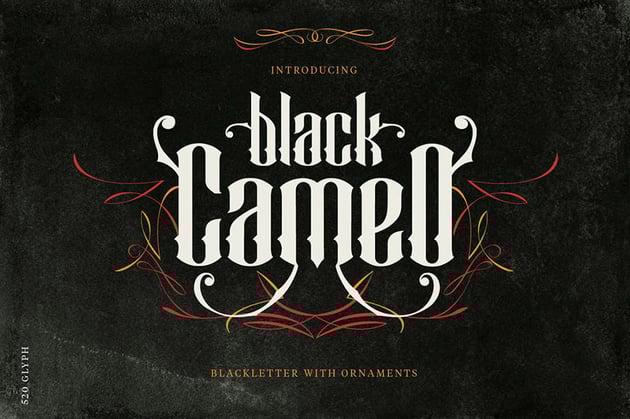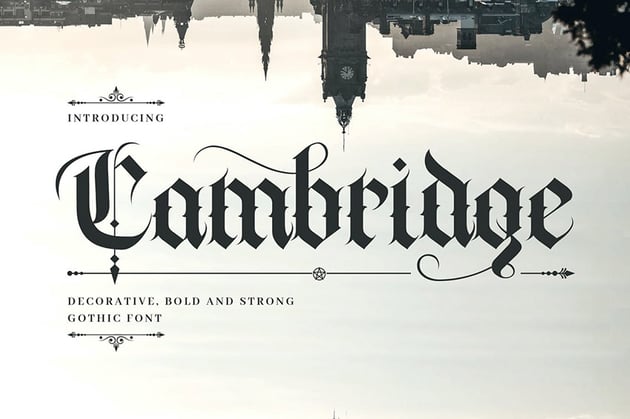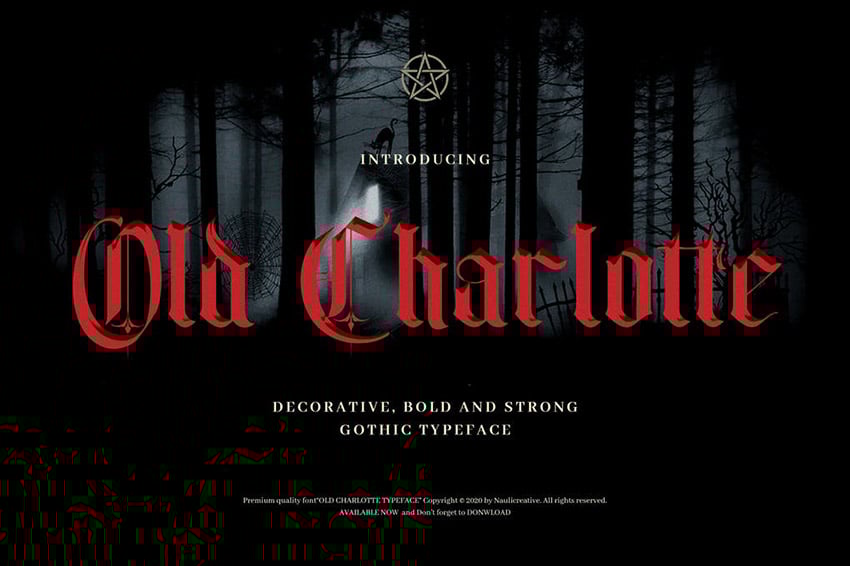
40 Best Blackletter and Gothic Fonts for Designers
Best Blackletter and Gothic Fonts
1. Aceking: Vintage Blackletter Gothic Fonts (OTF, TTF, WOFF)
This stylized display font borrows elements from Gothic type design and Western poster type to create an immersive style that would work well for band branding or gig flyers. Go ahead and download this epic blackletter font.
2. Jailetter Gothic Letters Font (OTF, TTF, EPS)
A modern lettering font with stylized nods to old-school typography, Jailetter Gothic Letters Font is an edgy, cool font. Try it on posters or for the label of a new brew.
3. Old Charlotte: Bold Gothic Fonts (OTF, TTF, WOFF)
Taking inspiration from Gothic calligraphy fonts, Old Charlotte: Bold Gothic Fonts feels right at home in the modern world. This English Gothic font is a good fit for book covers, invitations, and more projects or for dark lettering tattoos.
4. Cambridge: Gothic Letters Font (OTF, TTF, WOFF)
Cambridge: Gothic Letters Font is an old English Gothic font with a modern sense of style. It has a full set of characters, including numbers and punctuation. Try out Cambridge on a new logo or display video.
5. Othelie Gothic Fonts for Tattoos (OTF, TTF, EPS, PDF, AI)
Othelie Gothic Fonts for Tattoos is a very interesting take on goth fonts. The fuller characters have a softer, inviting look. Othelie includes alternate glyphs, so you can have the perfect modern blackletter font for your project.
6. Hurscol Bold Gothic Fonts (OTF)
Hurscol Bold Gothic Fonts is another one of the cool fonts available on Envato Elements. It has rounded glyphs for a friendlier look that's still grounded in German Gothic fonts. Hurscol also has a full set of numbers and punctuation.
7. Rontek Black Gothic Script (OTF, TTF, JPG)
Looking for the perfect Gothic font for tattoos or creative projects? Then you should try out Rontek. It's a typeface that is suited for darker creations. Its unique characters also make it a great option for a Gothic font tattoo.
8. Vrugoth: Modern Gothic Fonts (OTF, TTF, WOFF)
Vrugoth: Modern Gothic Fonts is another creative Gothic script font. This Gothic typeface has an earthy feel, perfect for nature-themed designs. You can design an outdoors brochure, nature presentation, or adventure guide with Vrugoth.
9. Blackey Bold Decorative Gothic Blackletter Font (OTF, TTF, WOFF)
If you need a decorative Gothic font, try Blackey. It's a typeface that looks like classic blackletter calligraphy from the 1800s. This is a modern medieval font that looks right at home on marketing materials and invitations. Blackey also works on Windows and Mac, so you can enjoy this medieval Gothic font on whatever software you're running.
10. Black Cameo Gothic Lettering Tattoo (OTF, TTF, PDF)
The Black Cameo Gothic Lettering Tattoo gives you many glyph options. More than 525 of them, actually. It's a nice choice for Gothic style letters, or if you're making some new designs for your clothing line.
11. Blade Brotherhood Gothic Calligraphy Fonts (OTF, TTF)
Blade Brotherhood Gothic Calligraphy Fonts is a classy take on Gothic calligraphy fonts. This serif typeface is a fun option for your creative projects. Try it out for an album or book cover, or maybe a poster with a soft Gothic aesthetic. This Gothic font's files work on both Windows and Mac computers.
It’s this blend of medieval influence and modern rebellion that makes blackletter and Gothic styles always look moody, cool, and dramatic. They’re great for adding edge and interest to posters, T-shirt designs, and logos.